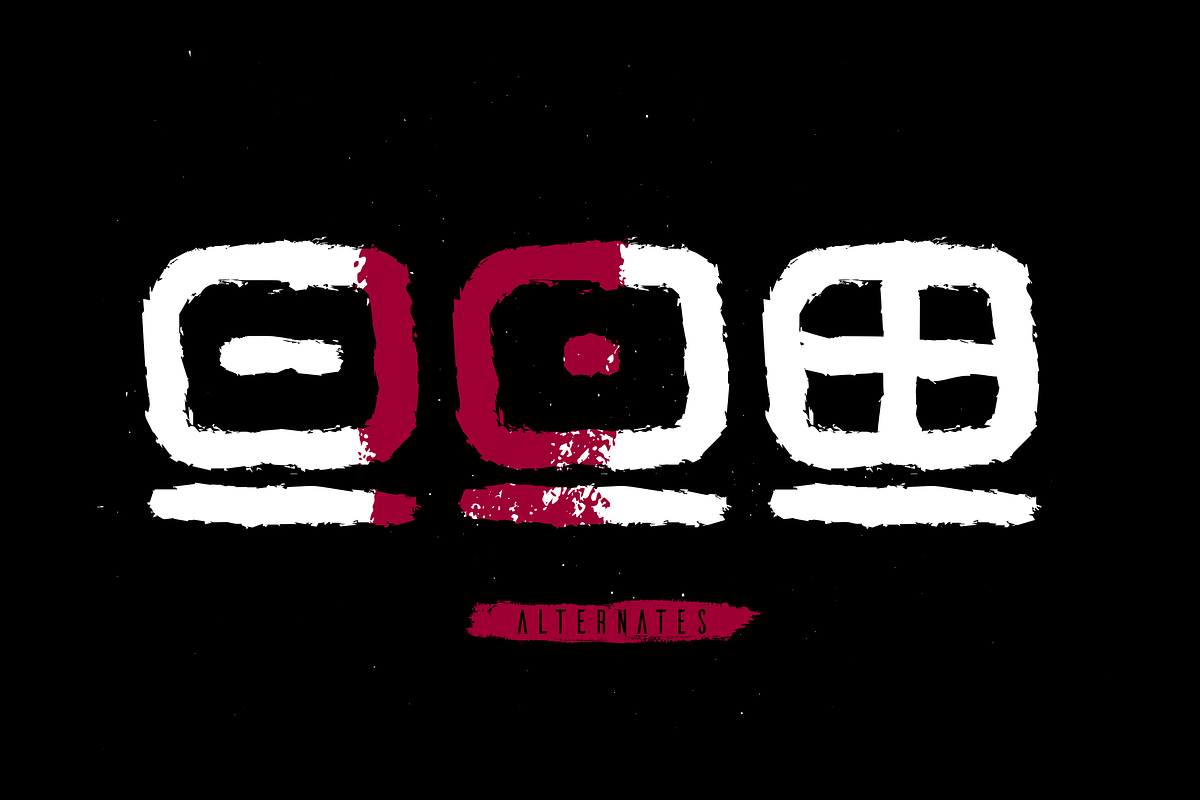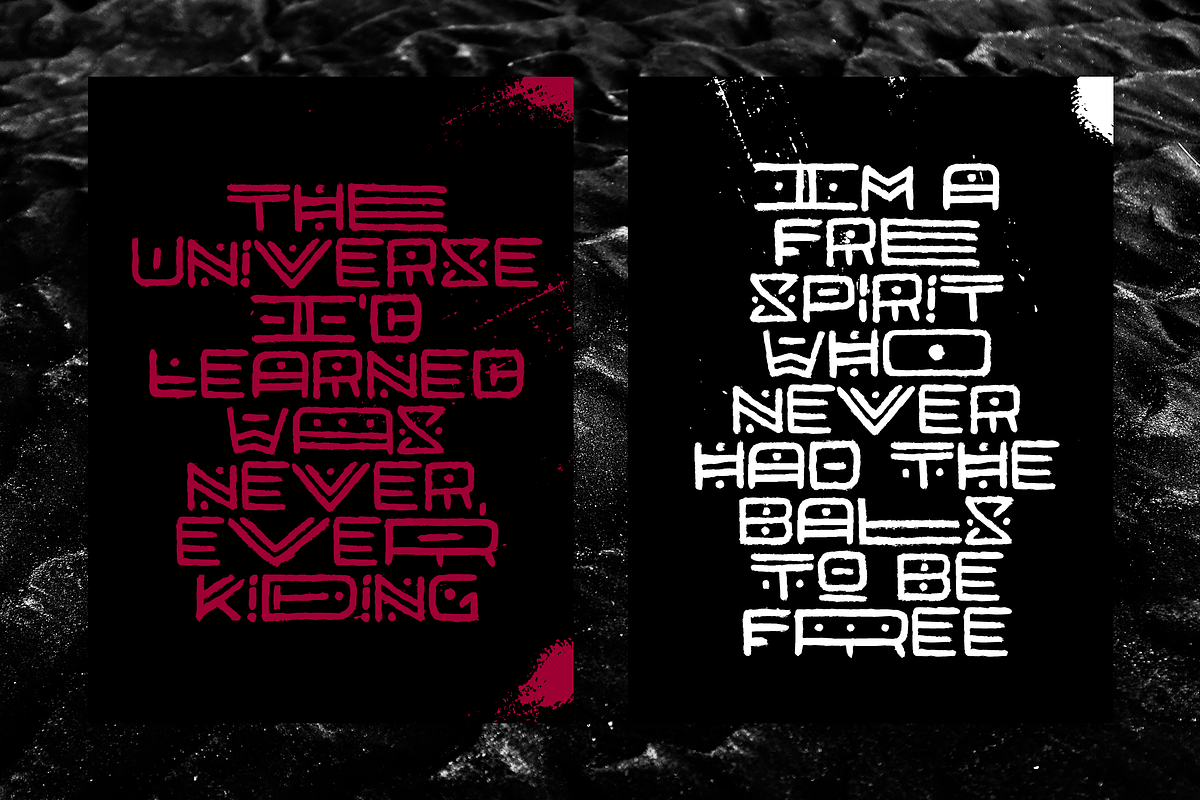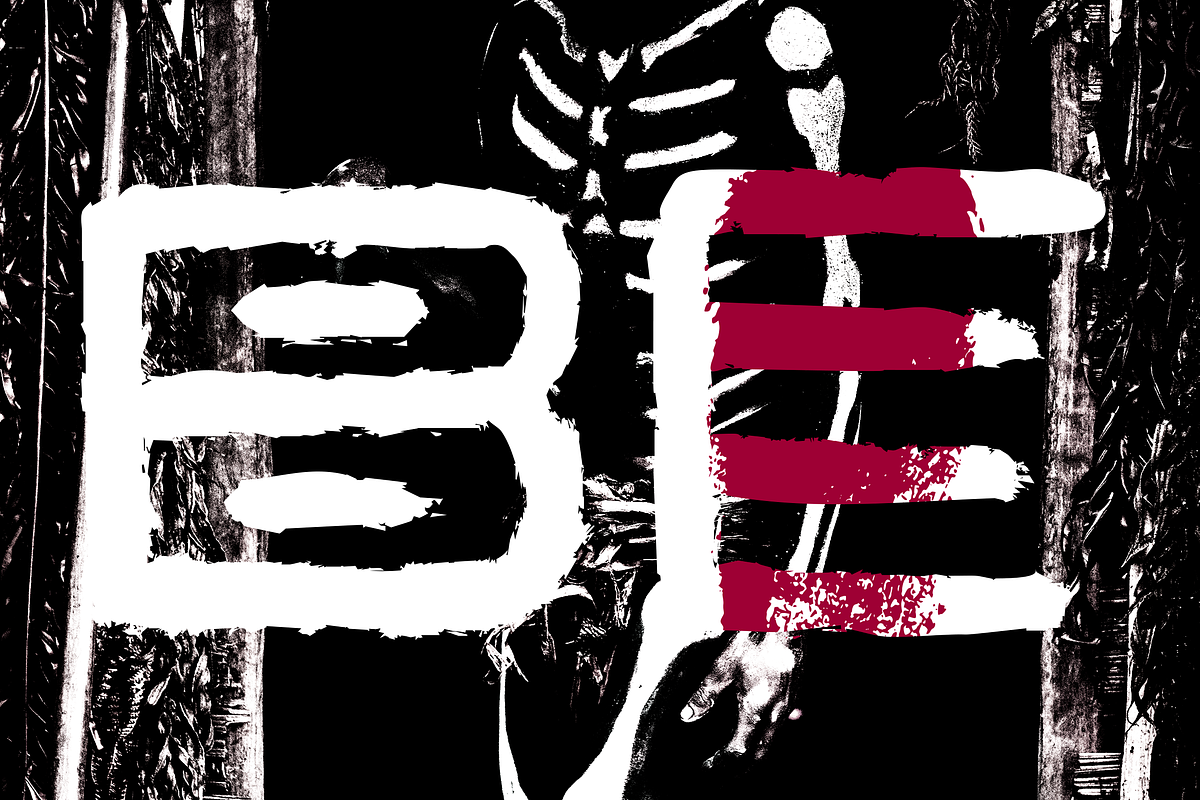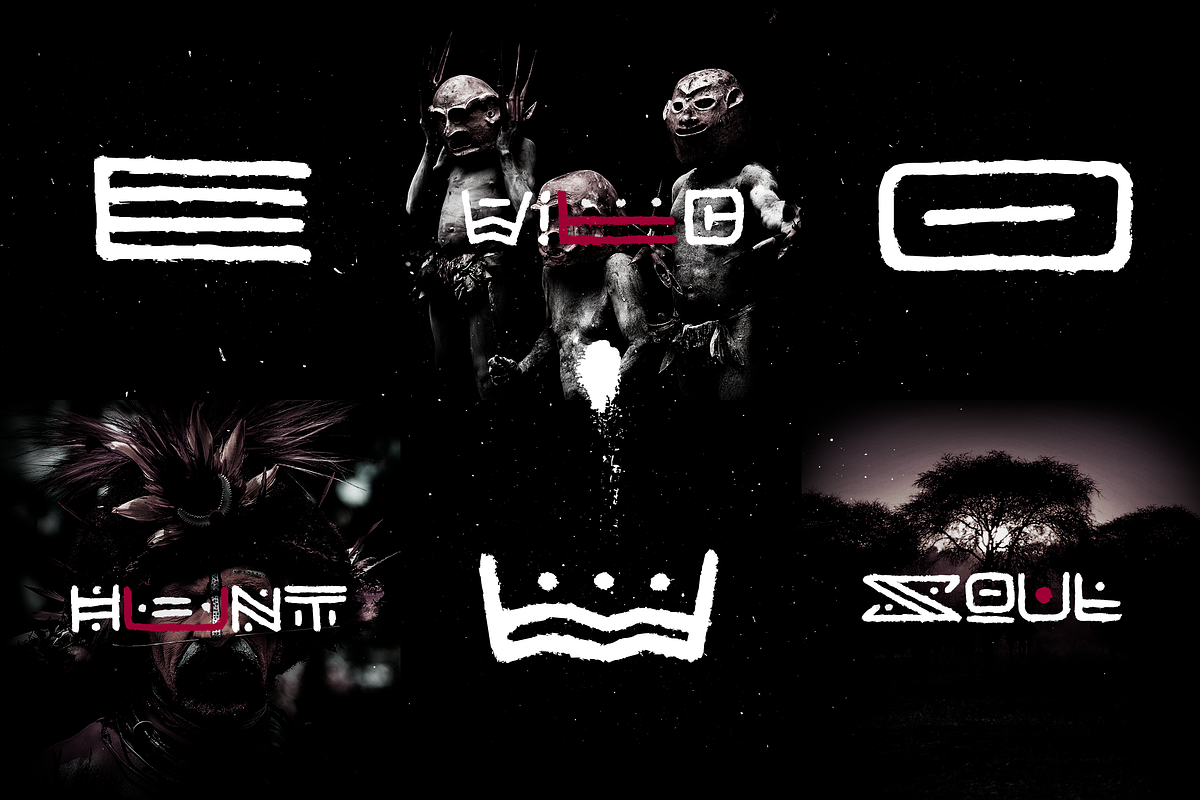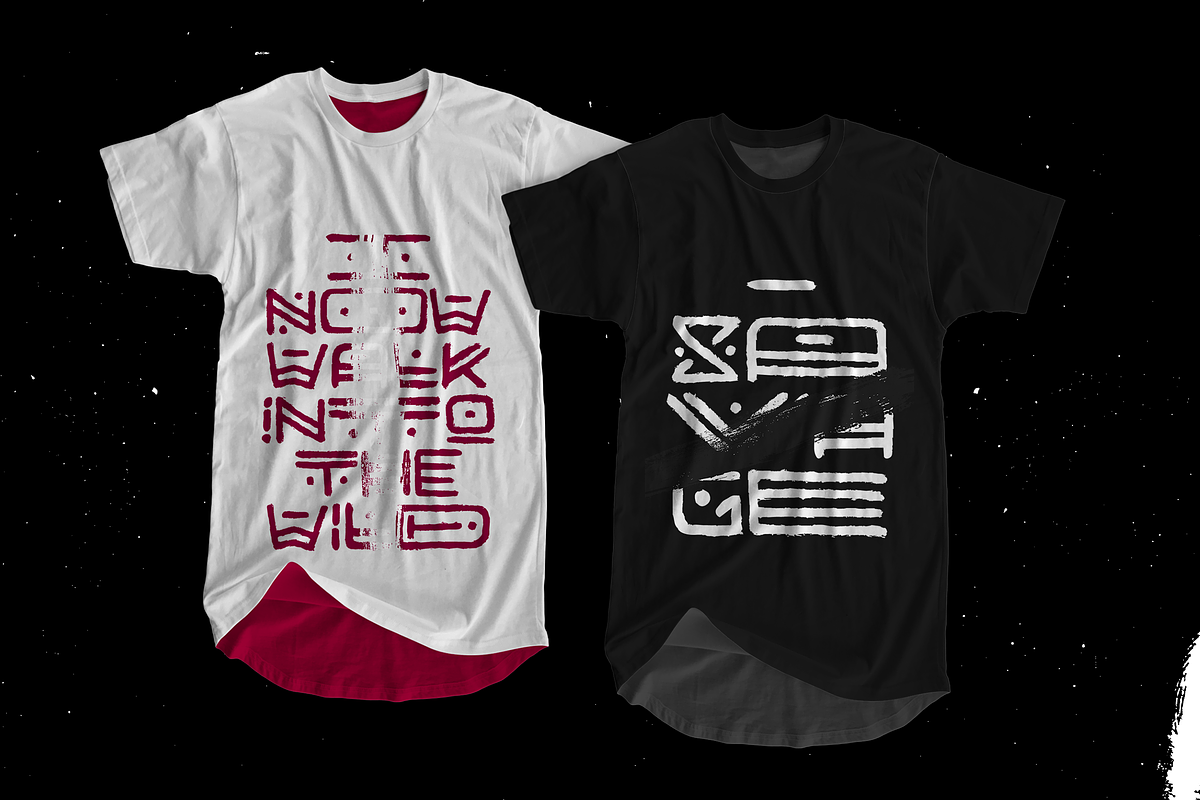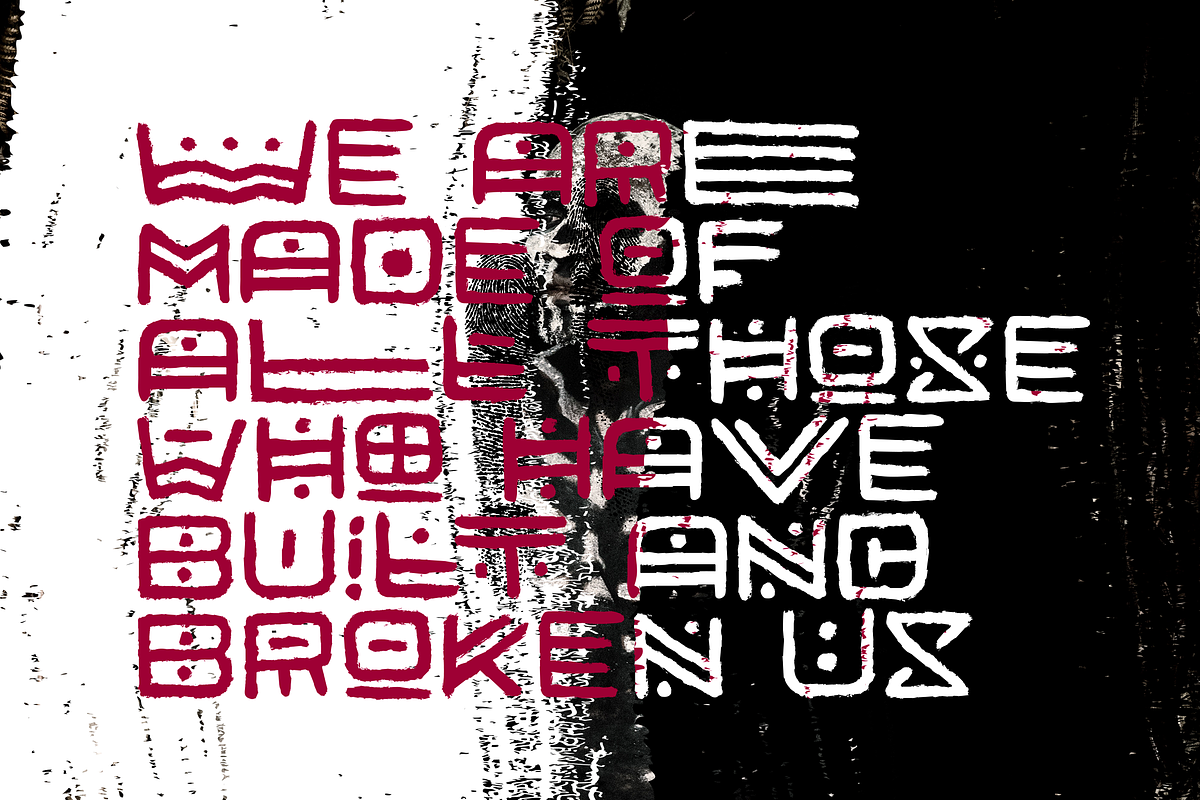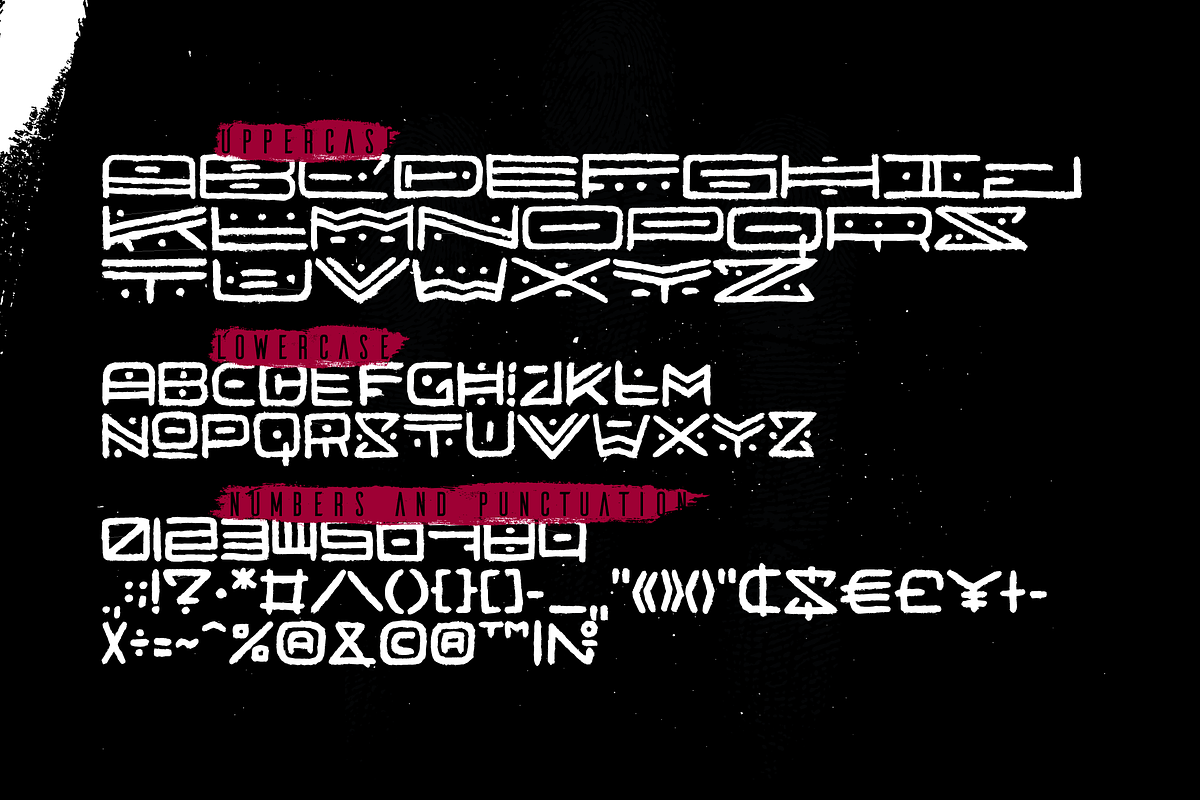
Afrik - Tribal Font
Afrik is a hand-painted font in which letterforms were inspired by the Proto-Saharan Ancient African writing system and scripts for African languages such as Mande and Vai.
Drawing technique I took from Ethiopian Tribe Karo's body painting. I drew each letter with my finger using self-made paint from crushed charcoal.
Afrik is uppercase font and instead of tall capital letters uses wide. They can be used instead of double letters or just to diversify a typing. Also, I included up to 4 alternate "decorations" for most of the letters which will help you to create unique artwork (use "Contextual Alternates" feature to randomize look automatically).
Afrik perfectly fits for posters, clothes design, and any design with a wild ethnic mood.
Up to 4 Alternative glyph styles
- Pant texture
- Up to 4 Alternative glyph styles